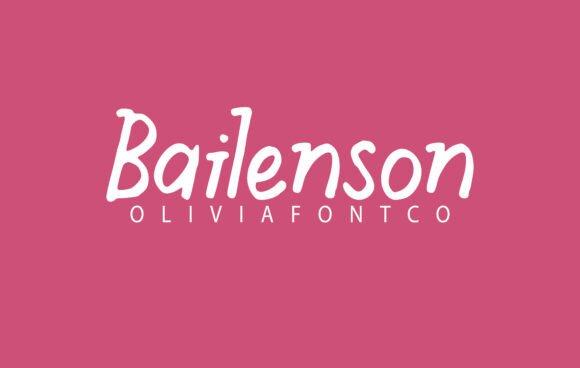
Bailenson Font: The Ultimate Choice for Creative Designs
In the world of typography, fonts play a crucial role in conveying the tone and personality of a brand or design. With numerous font options available, finding the perfect one that combines elegance, romance, and legibility can be a daunting task. However, if you’re looking for a font that checks all these boxes, look no further than the Bailenson font. In this article, we’ll delve into the features, benefits, and uses of the Bailenson font, and explore why it’s becoming a favorite among designers and creative enthusiasts.
What is Bailenson Font?
Bailenson font is an authentic handwritten font that exudes a romantic touch. Expertly designed to capture the essence of elegance and sophistication, this font has the potential to elevate your creative ideas to new heights. Its unique and flowing script makes it perfect for a wide range of design applications, from magazine headlines to wedding invitations.
Key Features of Bailenson Font
- Authentic Handwritten Style: Bailenson font boasts an authentic handwritten style that adds a personal touch to any design.
- Romantic Touch: The font’s romantic touch makes it perfect for designs that require a sense of elegance and sophistication.
- Legibility: Despite its ornate style, Bailenson font is highly legible, making it suitable for both title and body text.
- Versatility: This font can be used for a wide range of design applications, including magazine headlines, social media, branding, wedding invitations, cards, and more.
Benefits of Using Bailenson Font
So, why choose Bailenson font for your design projects? Here are some benefits that make it an attractive option:
- Unique and Eye-Catching: Bailenson font’s distinctive style sets it apart from other fonts, making your designs stand out from the crowd.
- Emotional Connection: The font’s romantic touch helps create an emotional connection with your audience, making your designs more relatable and engaging.
- Time-Saving: With Bailenson font, you can create professional-looking designs quickly and efficiently, saving you time and effort.
Uses of Bailenson Font
Bailenson font’s versatility makes it suitable for a wide range of design applications. Here are some ideas to get you started:
- Magazine Headlines: Add a touch of elegance to your magazine headlines with Bailenson font.
- Social Media: Use Bailenson font to create engaging social media posts that stand out from the crowd.
- Branding: Establish a strong brand identity with Bailenson font’s unique and recognizable style.
- Wedding Invitations: Make your wedding invitations truly special with Bailenson font’s romantic touch.
- Cards and Stationery: Create beautiful cards and stationery with Bailenson font’s elegant and sophisticated style.
Tips for Using Bailenson Font Effectively
To get the most out of Bailenson font, here are some tips to keep in mind:
- Pair with Complementary Fonts: Pair Bailenson font with complementary fonts to create a harmonious and visually appealing design.
- Use for Titles and Headlines: Use Bailenson font for titles and headlines to add emphasis and create a lasting impression.
- Experiment with Colors: Experiment with different colors to find the perfect combination that complements Bailenson font’s elegant style.
- Keep it Simple: Don’t overdo it – keep your design simple and clean to let Bailenson font shine.
In conclusion, Bailenson font is an exceptional choice for designers and creative enthusiasts looking for a unique and elegant font that adds a romantic touch to their designs. With its authentic handwritten style, legibility, and versatility, Bailenson font is perfect for a wide range of design applications. By incorporating Bailenson font into your design projects, you’ll be able to create stunning and memorable designs that leave a lasting impression on your audience.
- What is Bailenson font?: Bailenson font is an authentic handwritten font with a romantic touch, designed for creative designs.
- Is Bailenson font legible?: Yes, Bailenson font is highly legible, making it suitable for both title and body text.